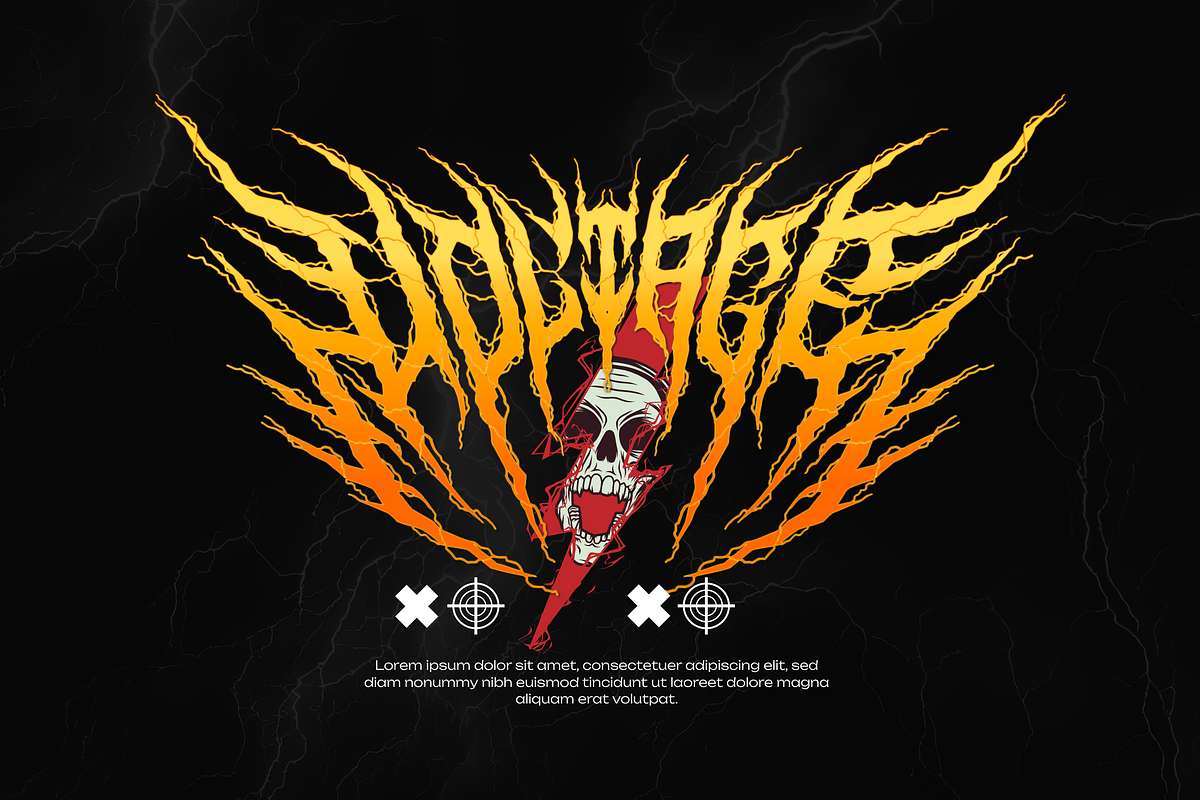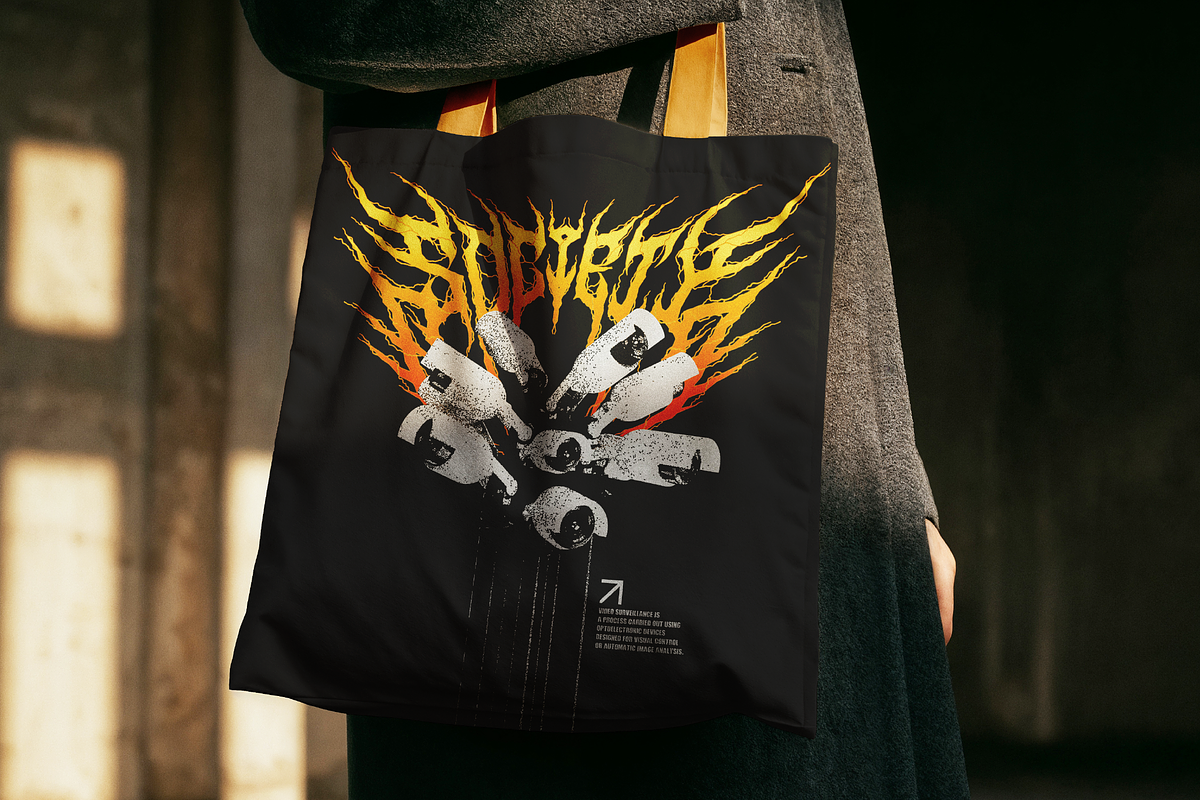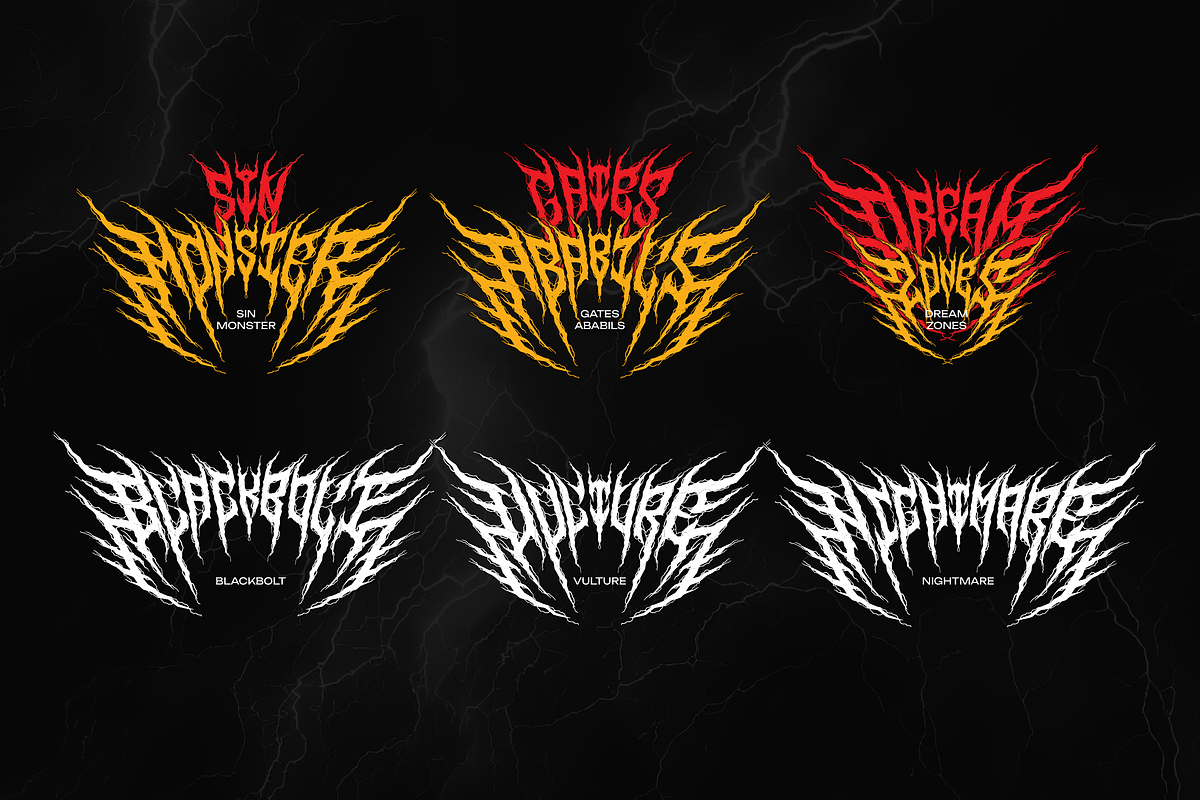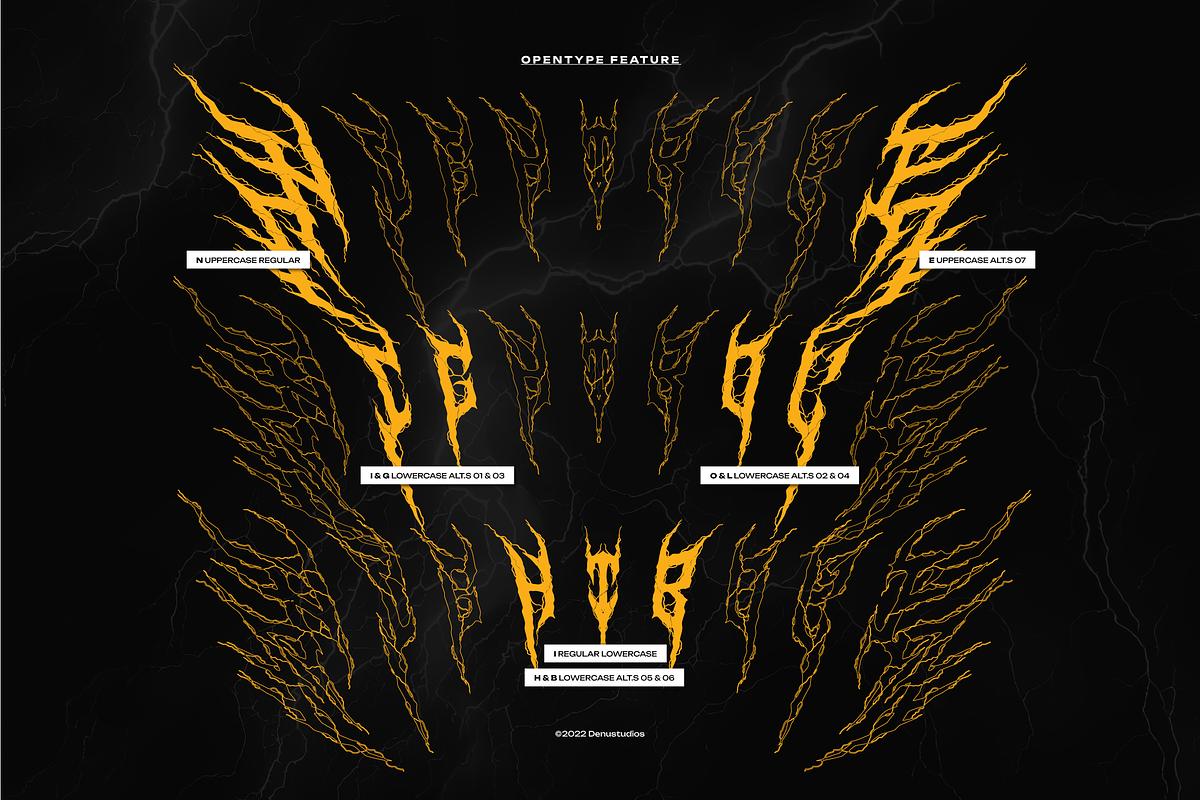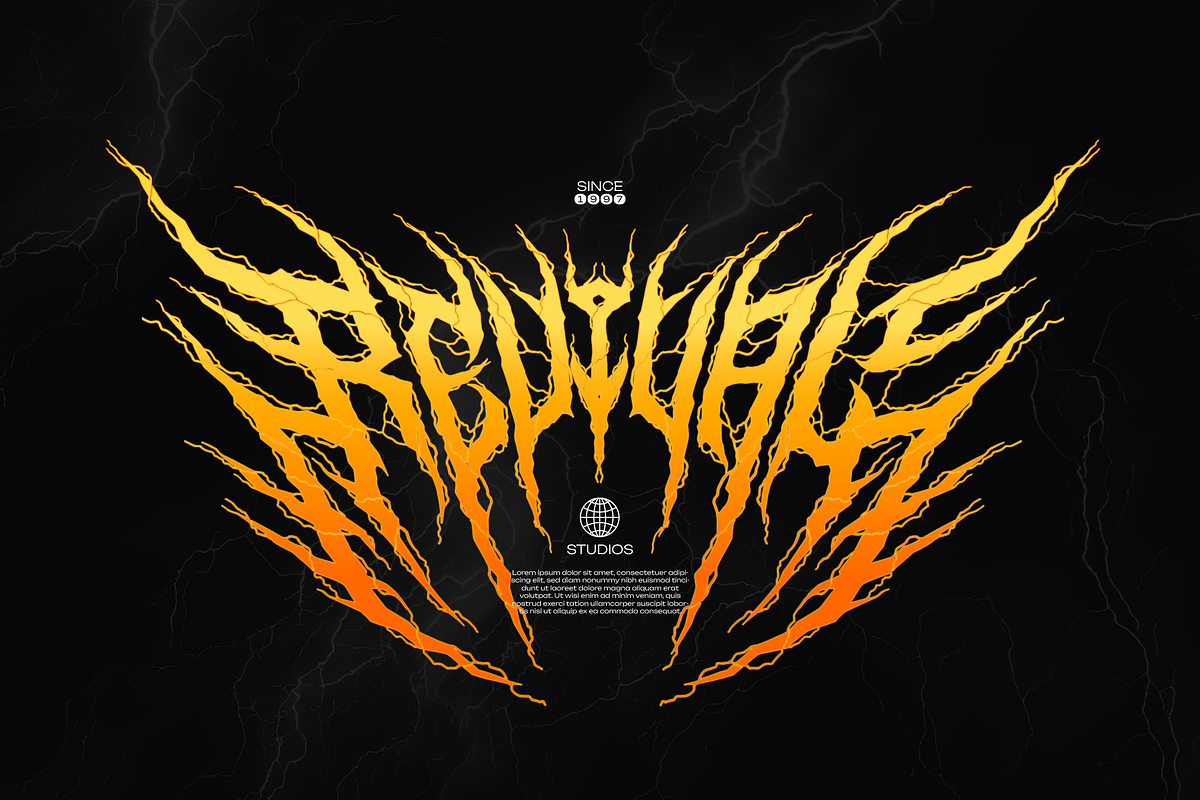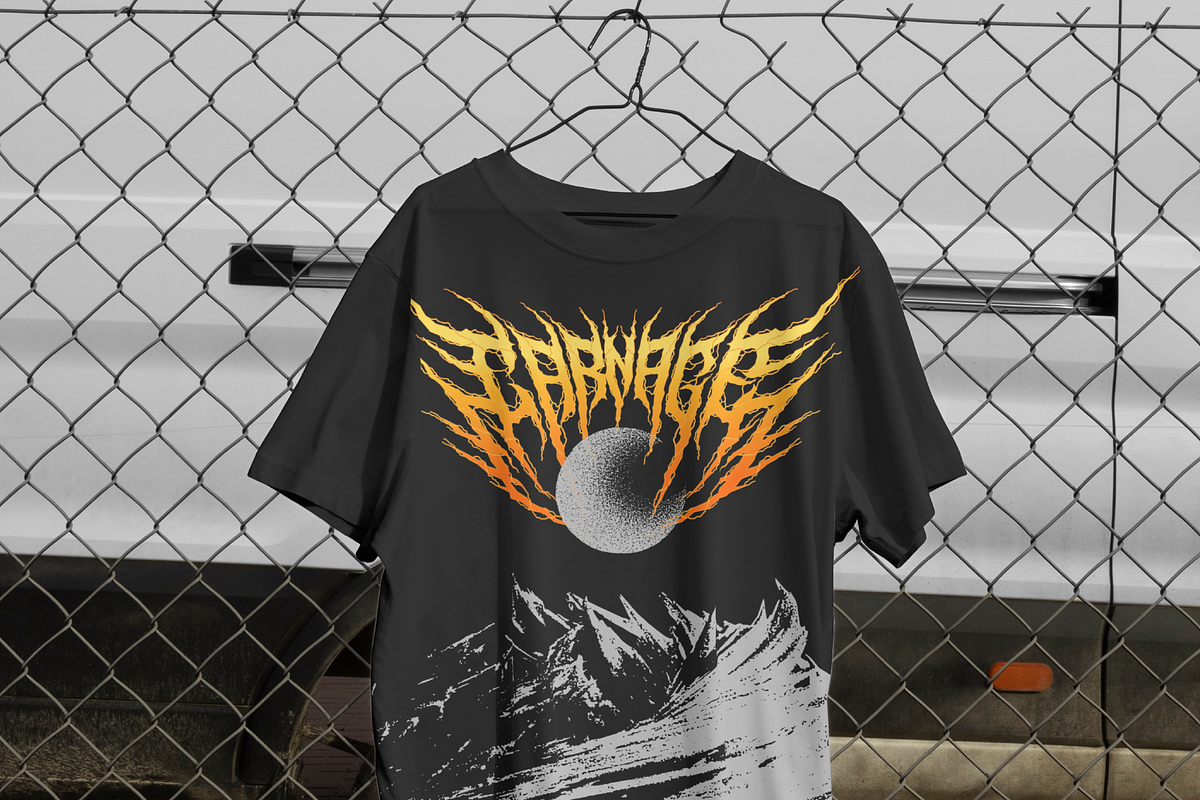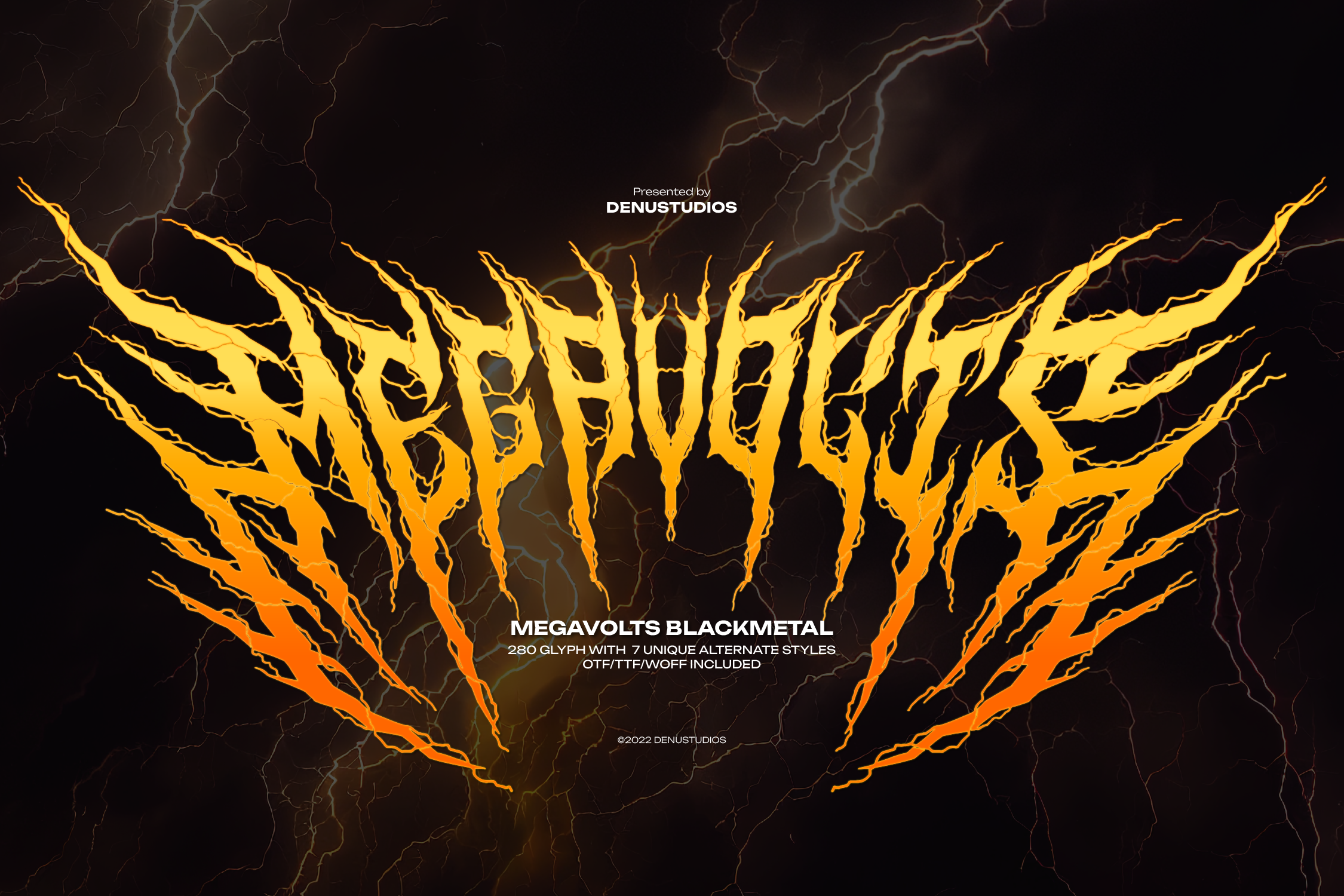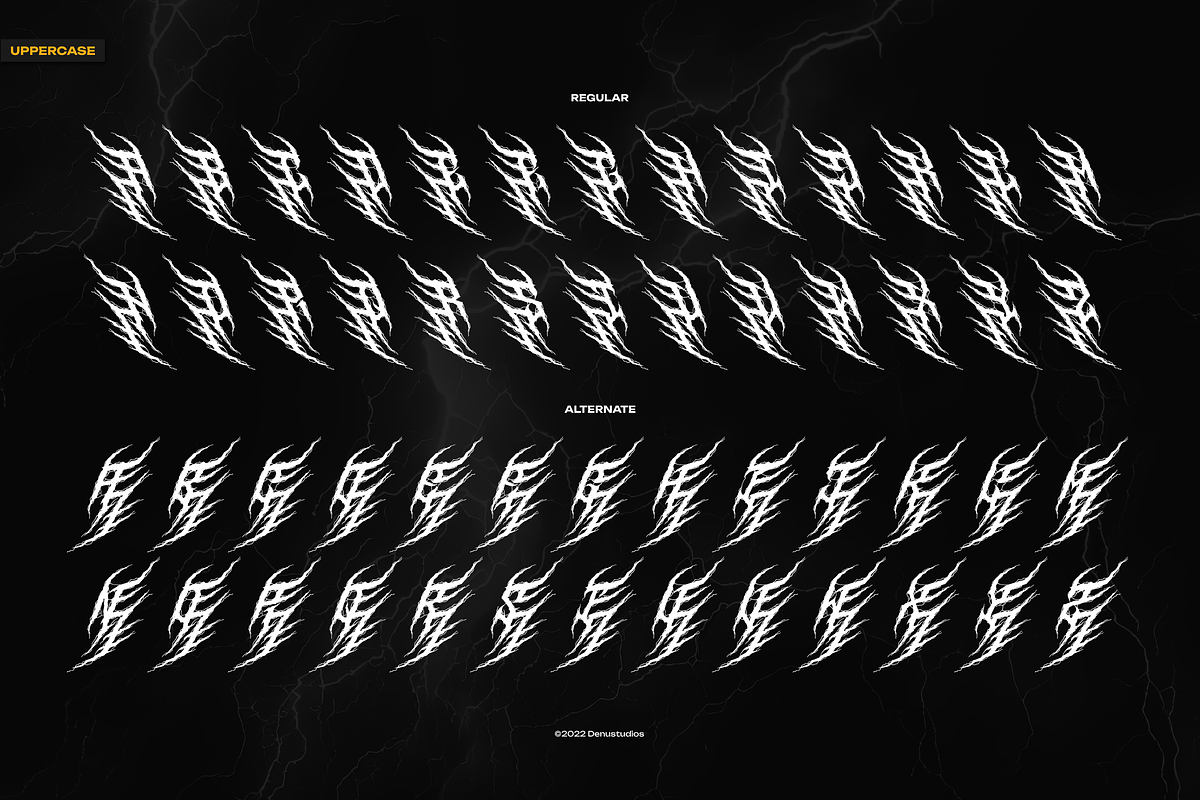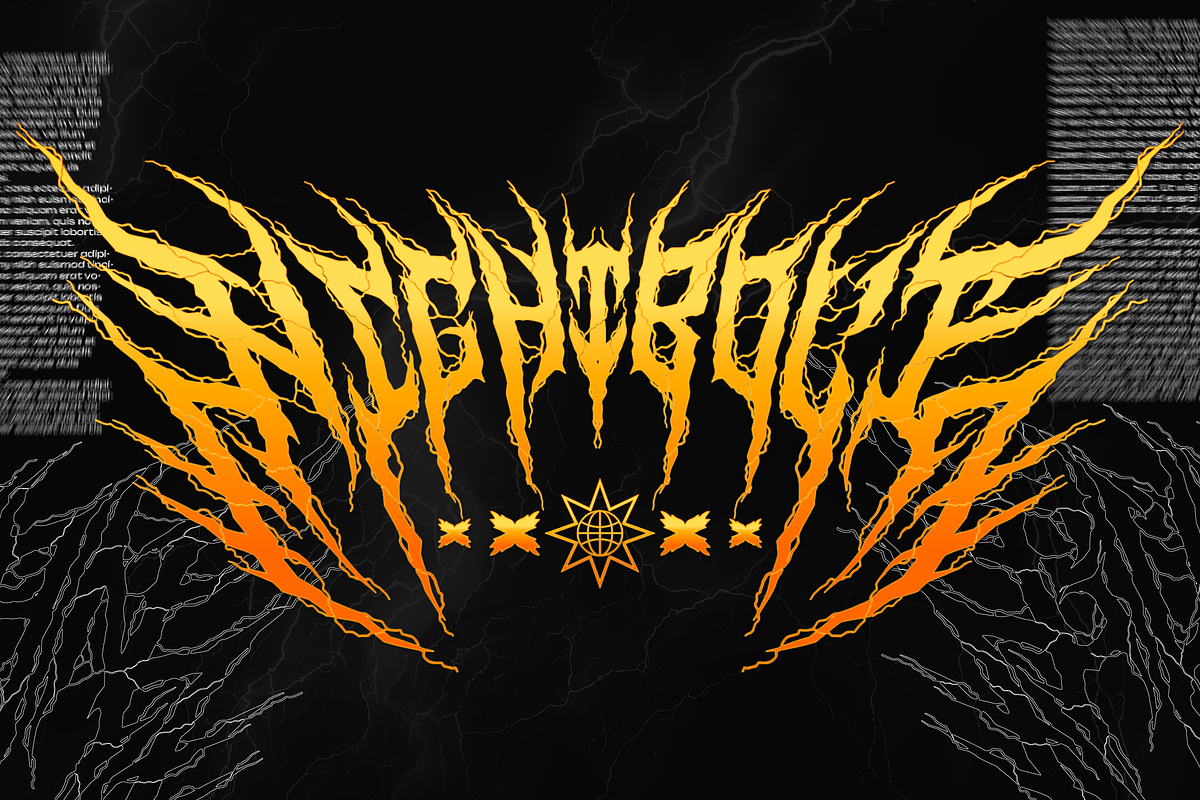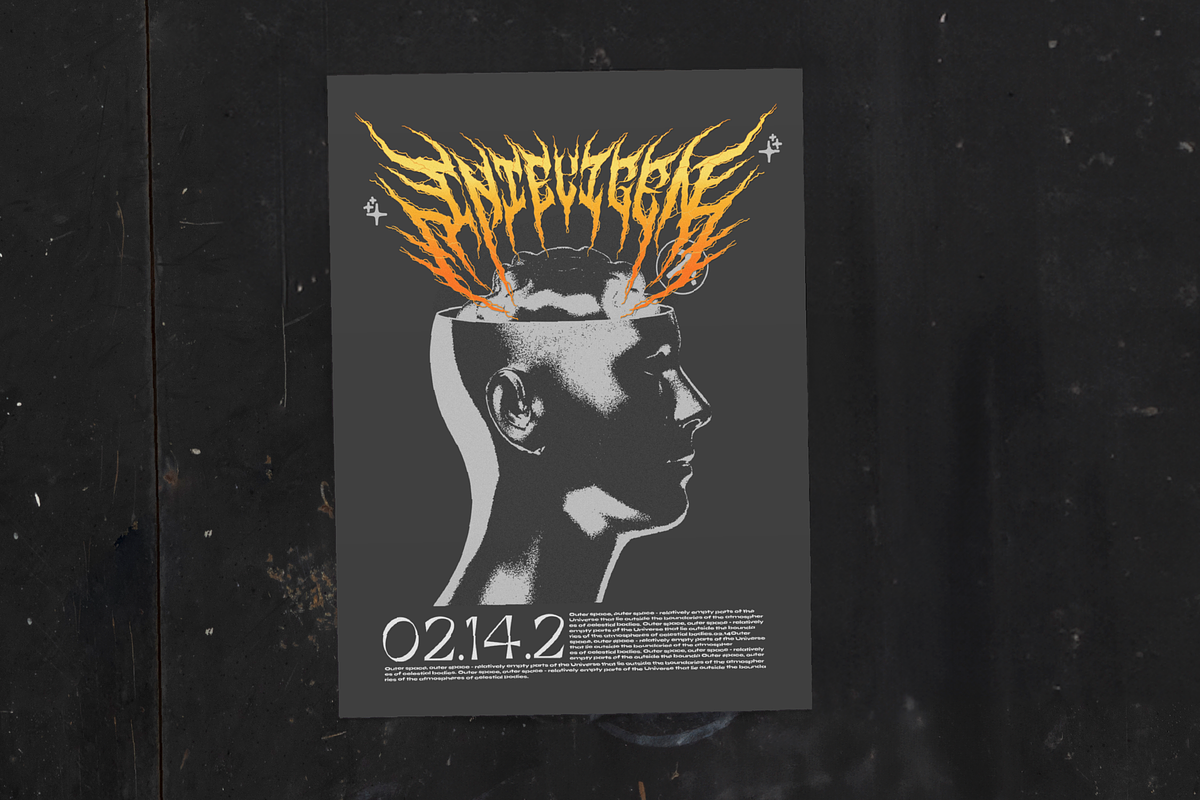
Megavolts | Black Metal Font
Megavolts | Black Metal Font, from Denustudios, suitable for any projects such as: logos, branding projects, homeware designs, product packaging, mugs, quotes, posters, shopping bags, t-shirts, book covers, name card, invitation cards, greeting cards, label, photography, watermark, special events, and all your other lovely projects that need a Black Metal Typeface taste.